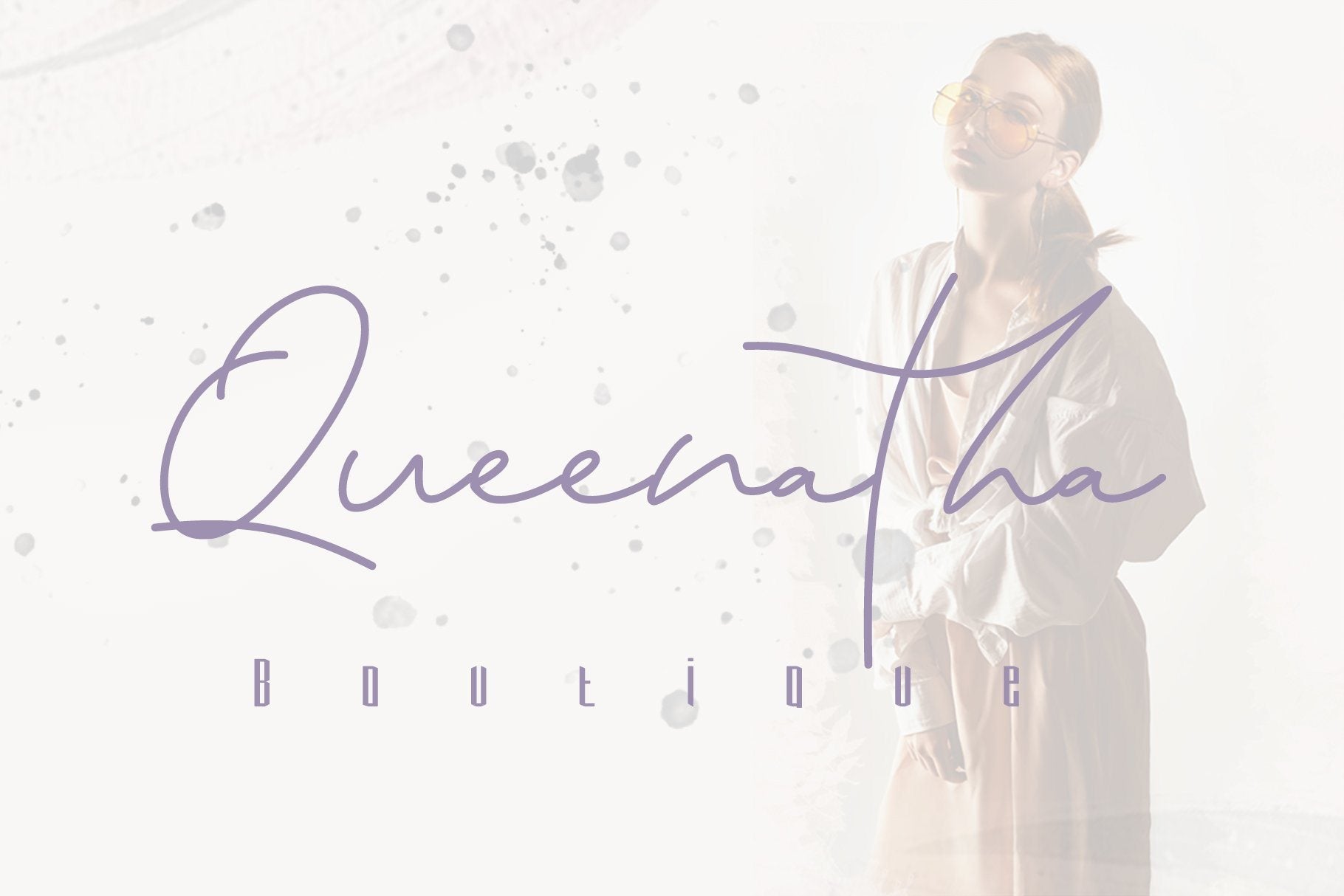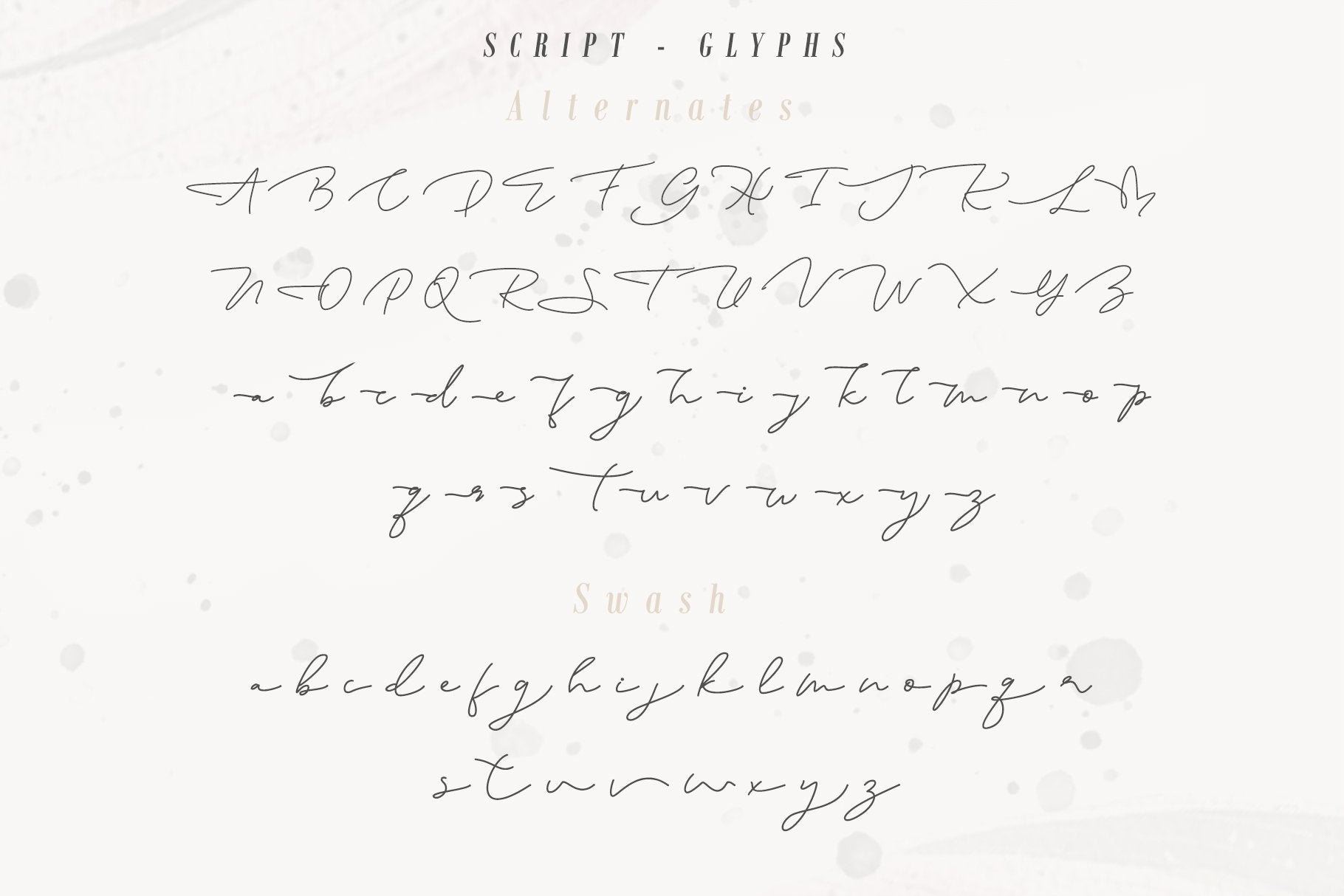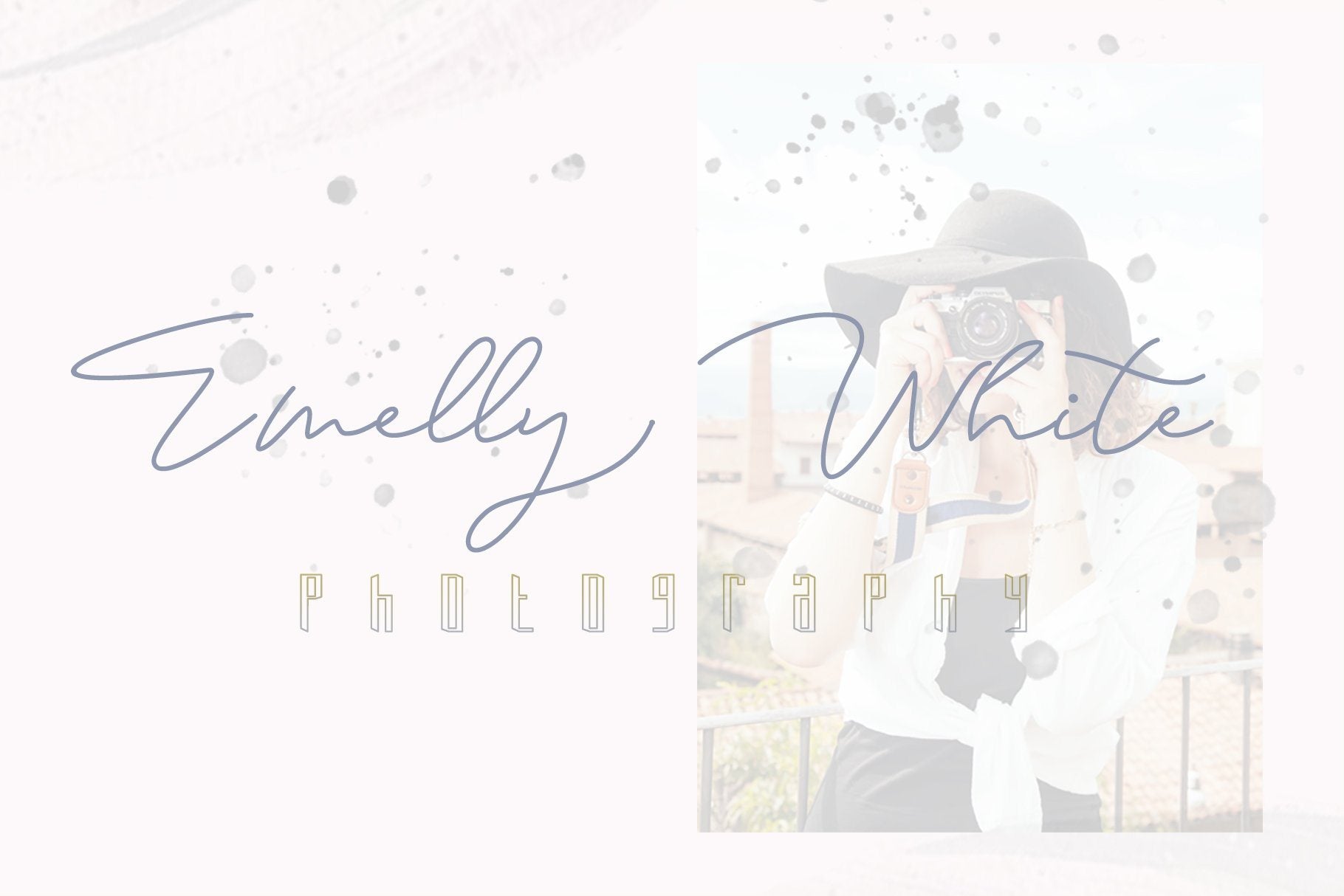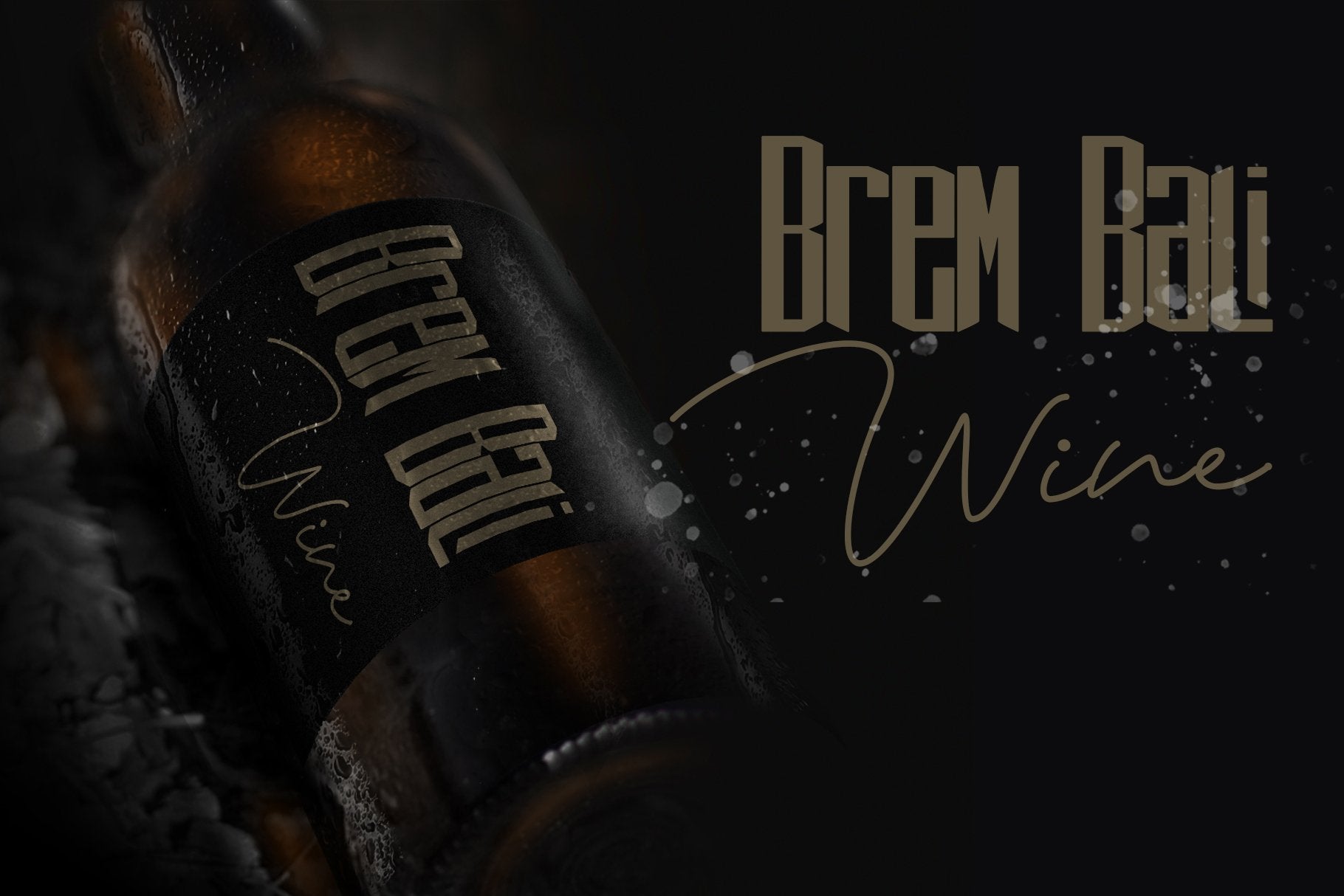
About EIFFEL IN LOVE (FONT TRIO)
Eiffel in love is a beautiful high fashion font trio, consists of 2 sans fonts and 1 script font. with a strong modern style sans and beautiful script, this is perfect for branding, logos, masterheads and, printed quotes, badge, insignia, packaging, headline, poster, t-shirt/apparel, greeting card and many more. Use your inspiration and your design will be perfect! don’t wait anymore, put it in your shopping basket 🙂 and follow me, because there will be many promos! Features : – Fonts trio – Upper Case & Lowercase – Numerals – Punctuations (OpenType Standard) – Accents (Multilingual characters) – Ligatures – Works on PC & Mac – Simple installations – Accessible in the Adobe Illustrator, Adobe Photoshop, Adobe InDesign, even works on Microsoft Word. Our other products : BEST SELLER BLACK PINK SIGNATURE ANDORA BRIGITTA SANTERIA HEANFFE GALGADOT